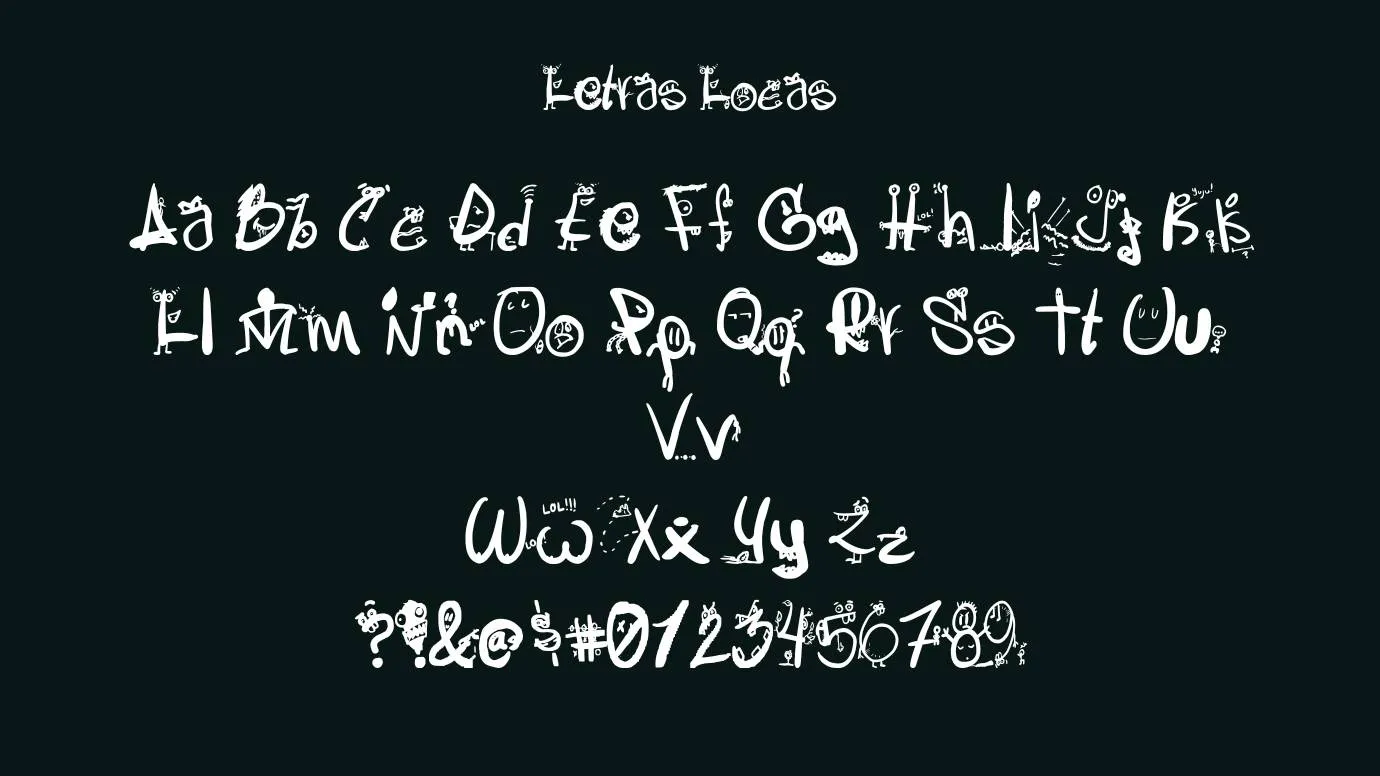
Letras Locas Font is a very playful and lovely font. The look of this font is very unique and attractive. This font is mostly used in 1999s for making interesting cartoon series. It was designed by Augosto Elorza.
It was inspired by Mexican books related to comics. Its characters are very similar to those books. It is also famous for making novels from the 1994s to the 1950s.
NameLetras Locas Font
DesignerAugusto Elorza